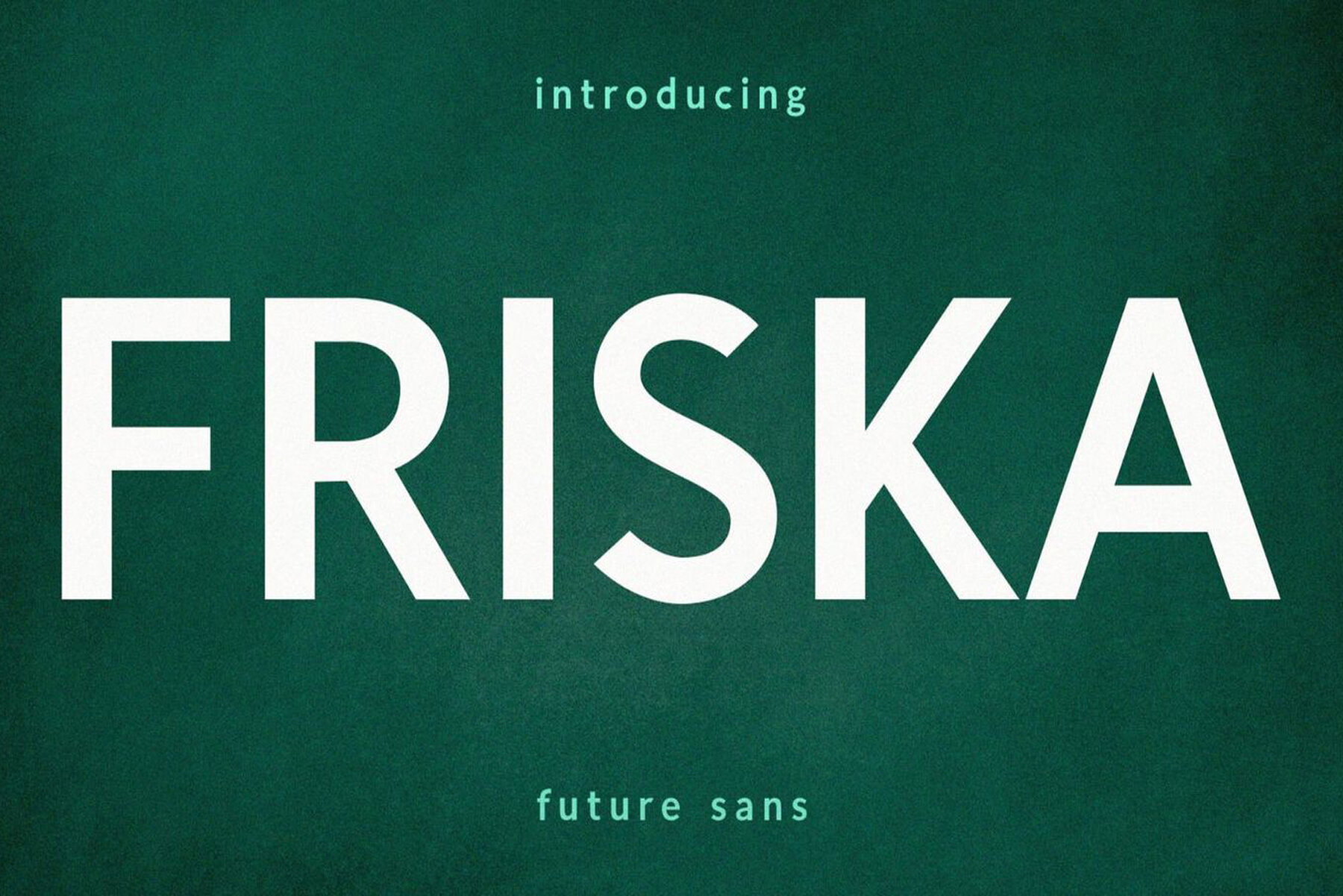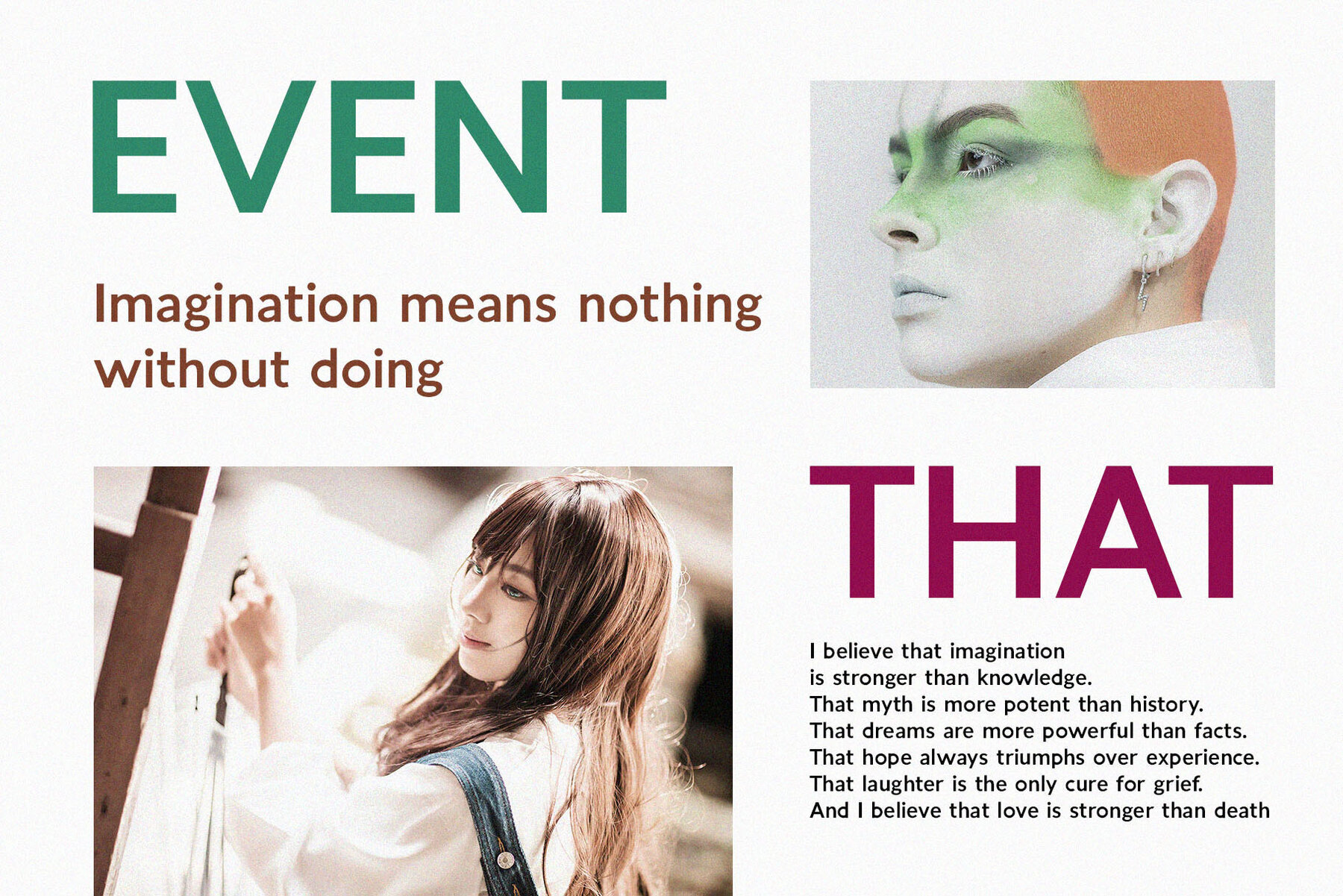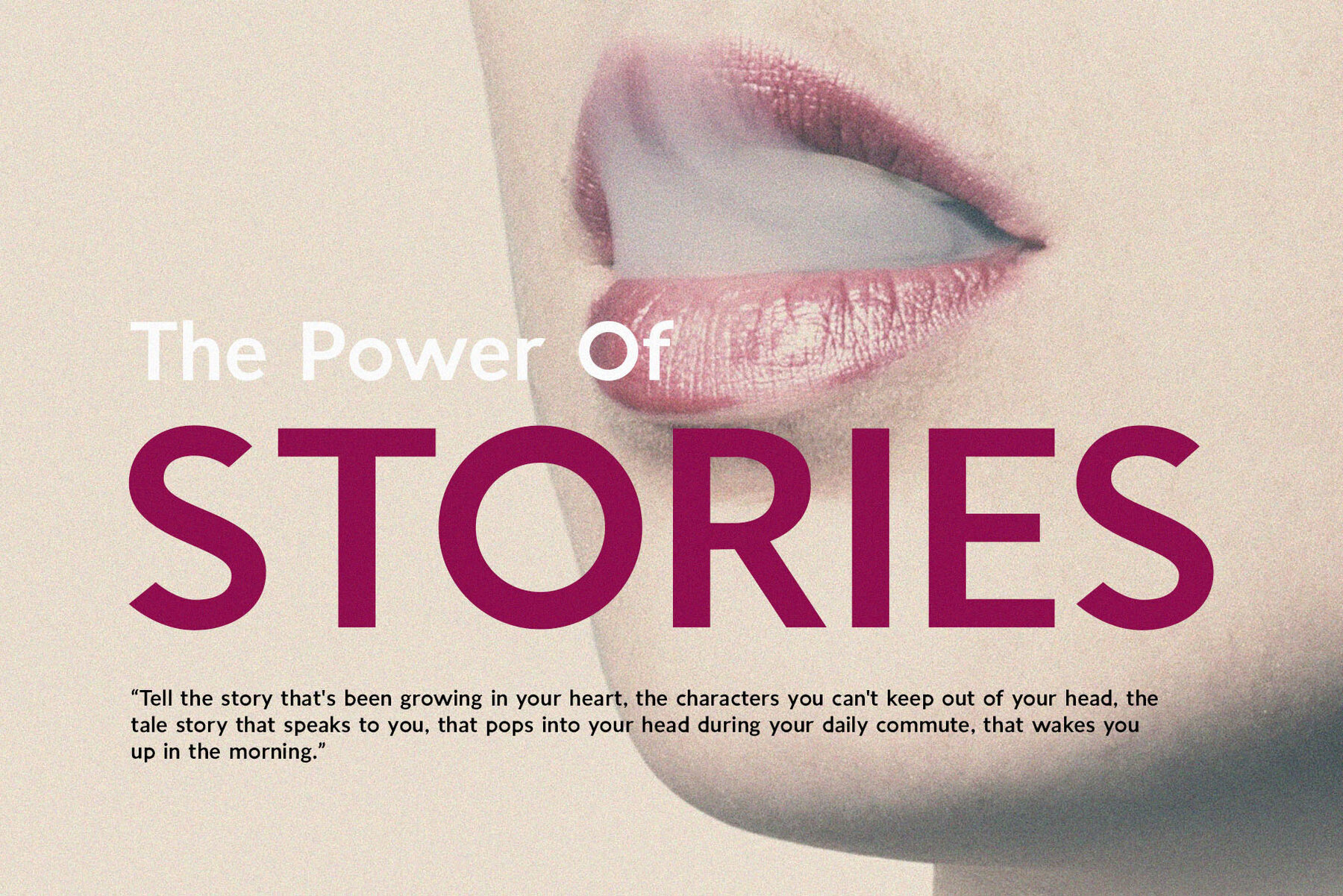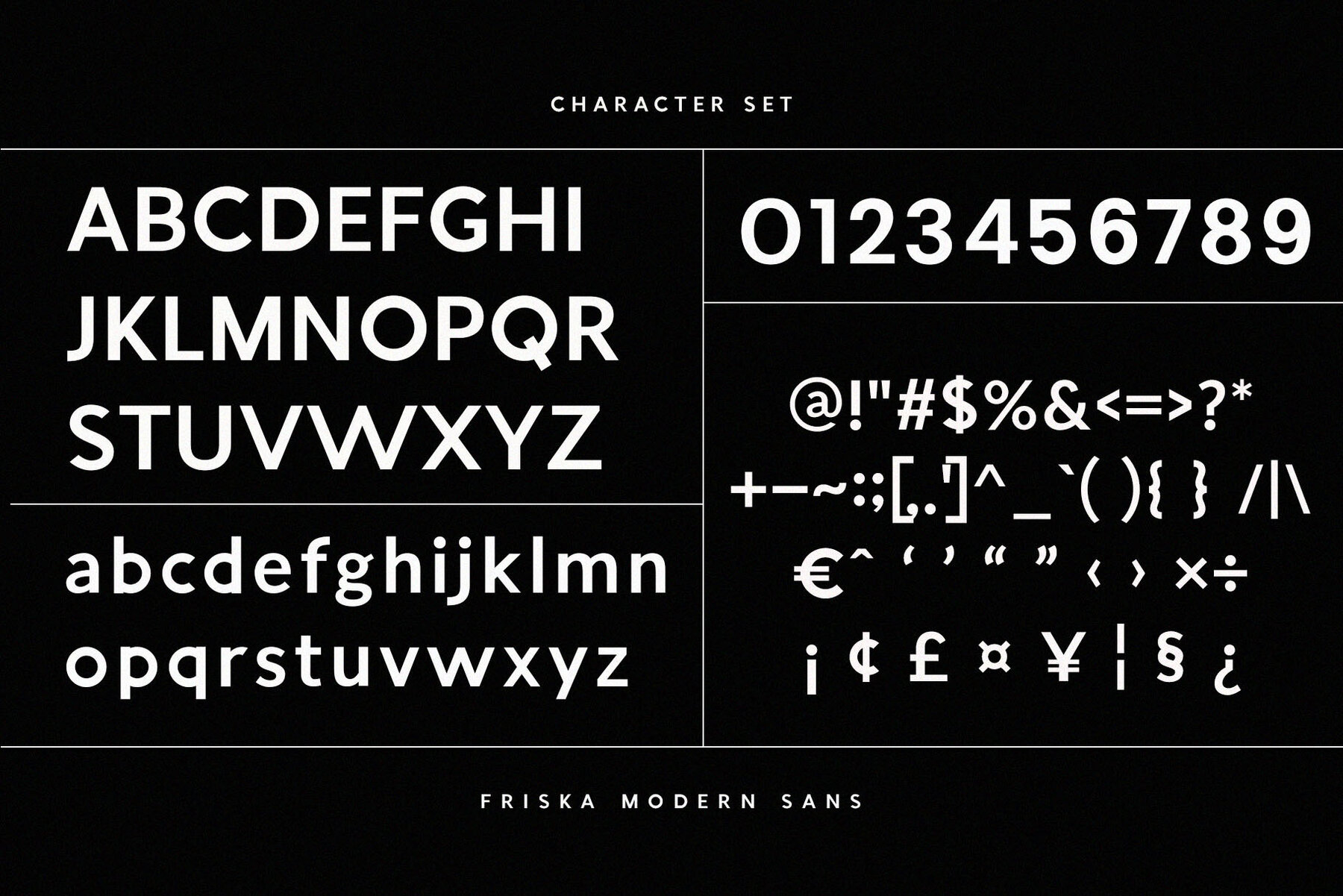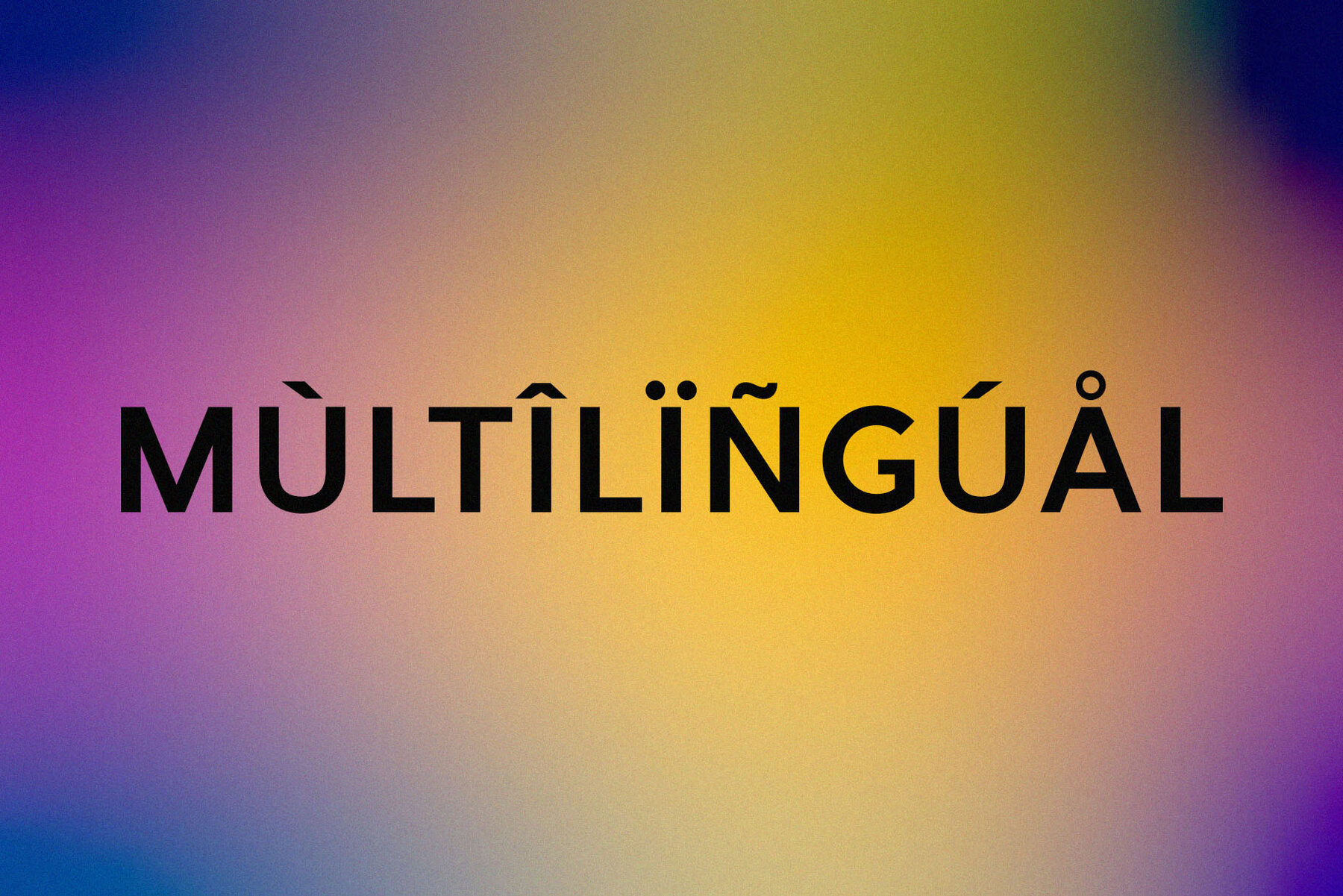
Friska Font
Friska Regular
Friska is a classy and modern sans-serif font designed for a wide range of design applications, including websites, logos, magazines, and social media posts. With its sophisticated and contemporary design, Friska is an ideal choice for adding a touch of elegance to your projects. Its refined and timeless appeal ensures class in every visual endeavor. To enjoy Friska, a webfont license is required for web use. If you have any questions or need assistance, feel free to reach out to us at Font Kingdom.Friska: Classy and Modern Sans-Serif
Ideal for Various Designs